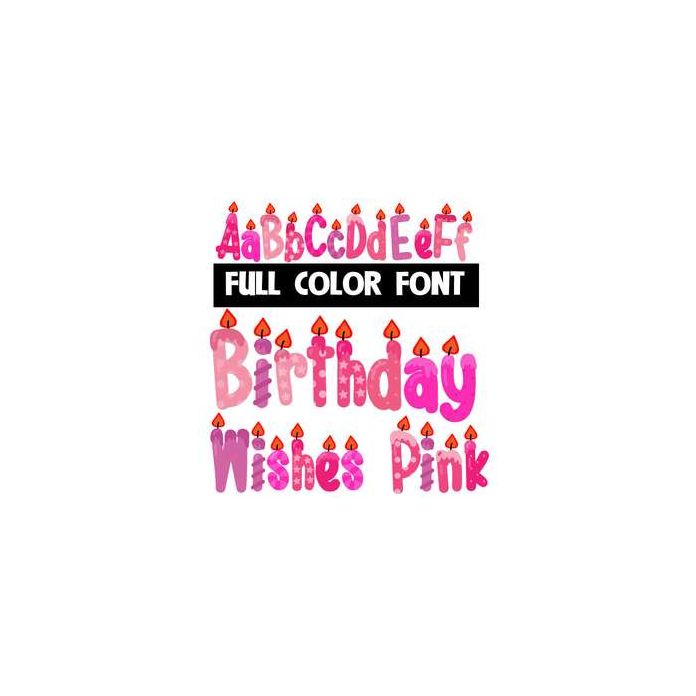
This full-color font feature pink candles with flames. This font works best for titles, displays, posters and more. Please note color fonts will show as black in non compatible programs. This font type is compatible with Silhouette Studio.